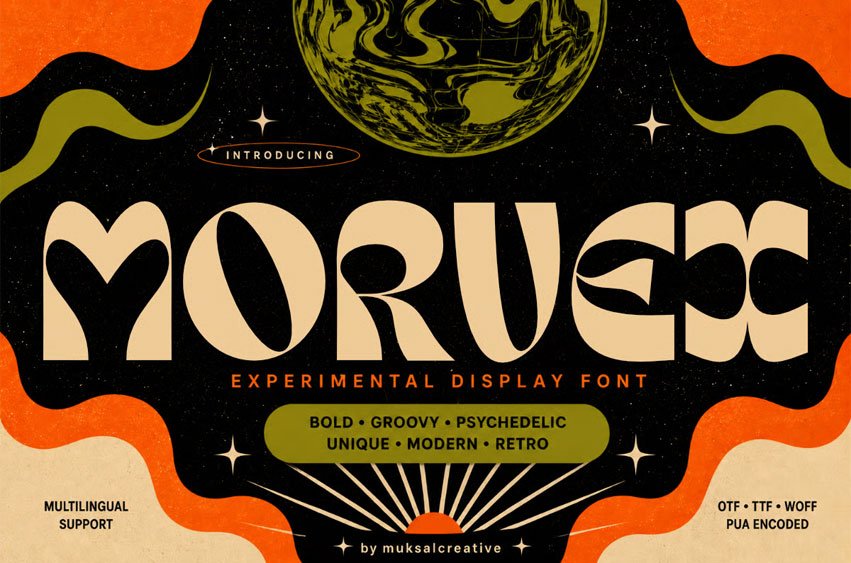
Morvex Font is a bold experimental display font inspired by futuristic typography, retro music visuals, and abstract graphic culture. Featuring unique geometric forms, expressive curves, and strong visual rhythm, this typeface is designed to create eye-catching and artistic typography compositions.
Perfect for poster designs, album artwork, branding, editorial layouts, social media graphics, packaging, creative headlines, and experimental visual projects.
MORVEX delivers a modern artistic atmosphere while maintaining a strong and memorable character, making it ideal for contemporary display design and creative visual exploration.
- Uppercase & Lowercase
- Numbers & Punctuation
- Multilingual Support
- Experimental Display Style
- Futuristic & Retro Inspired
- Unique Geometric Letterforms
- High Visual Impact